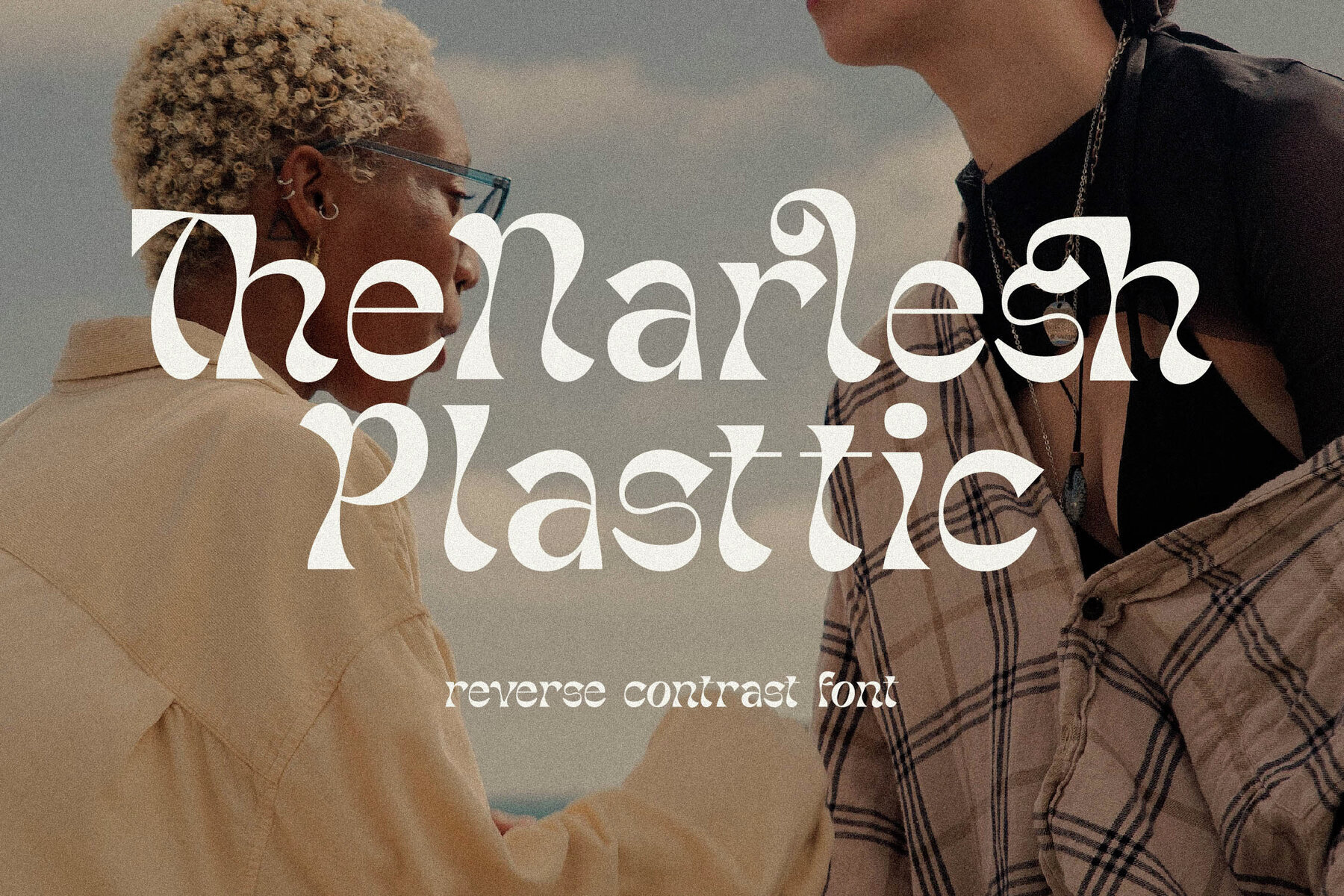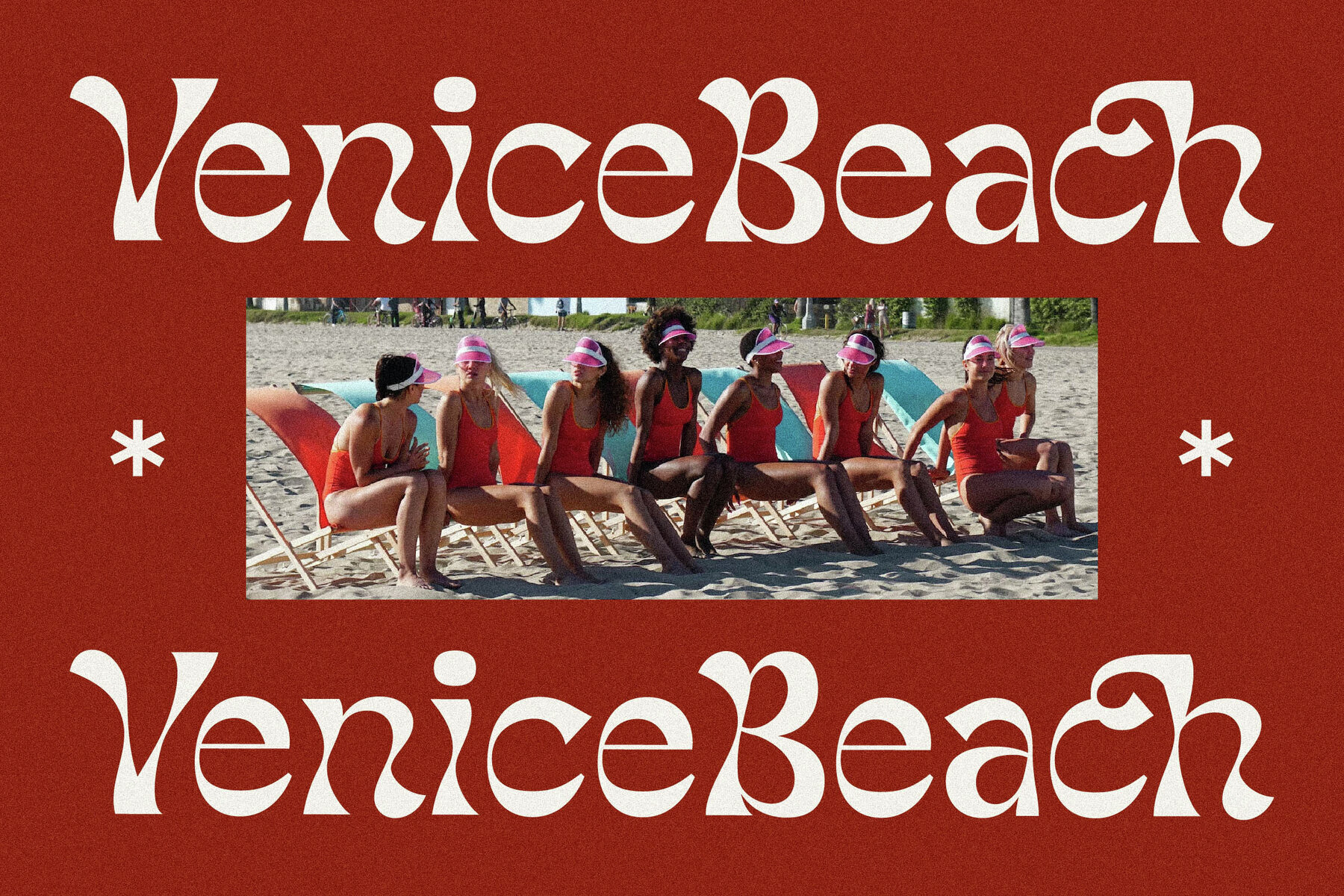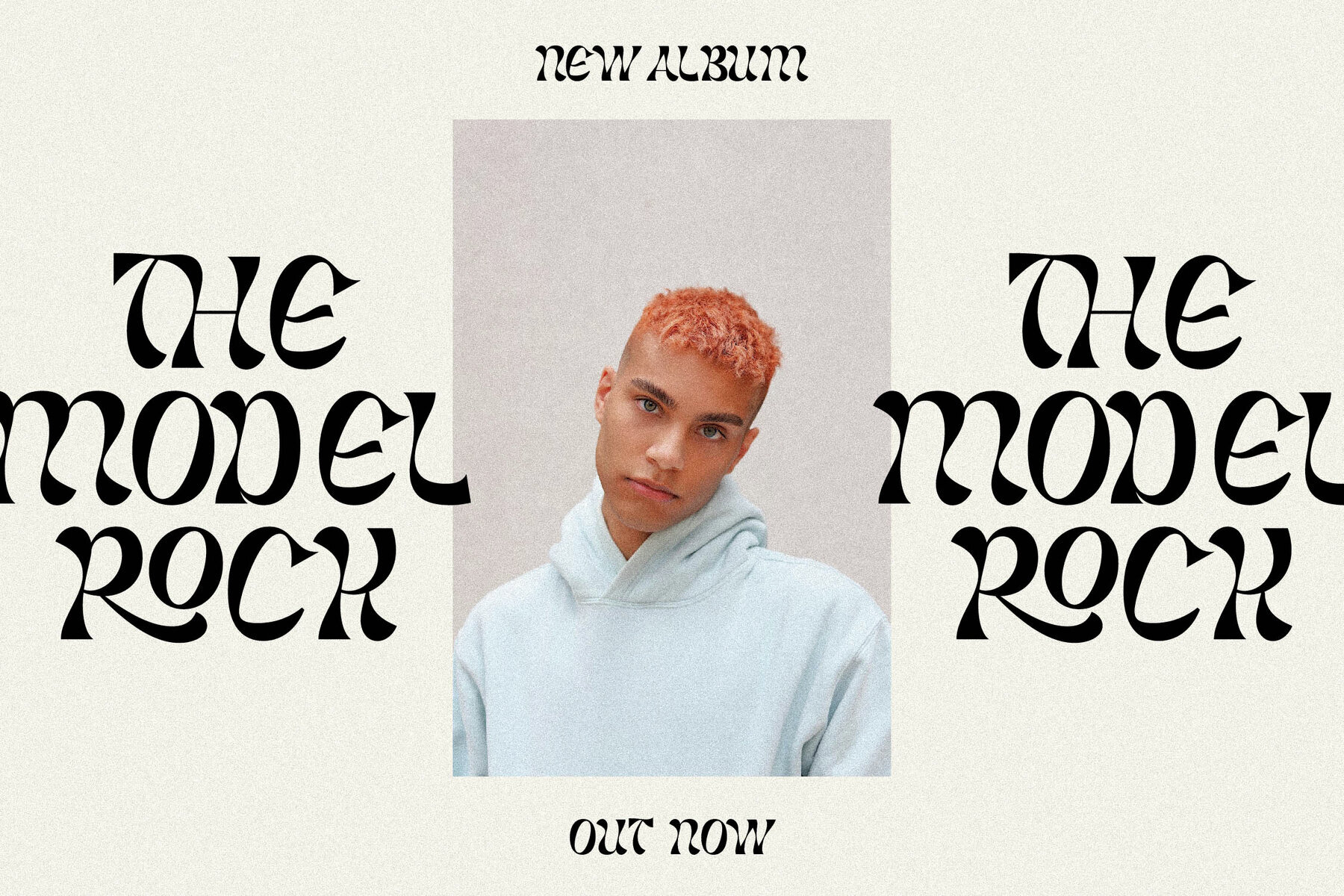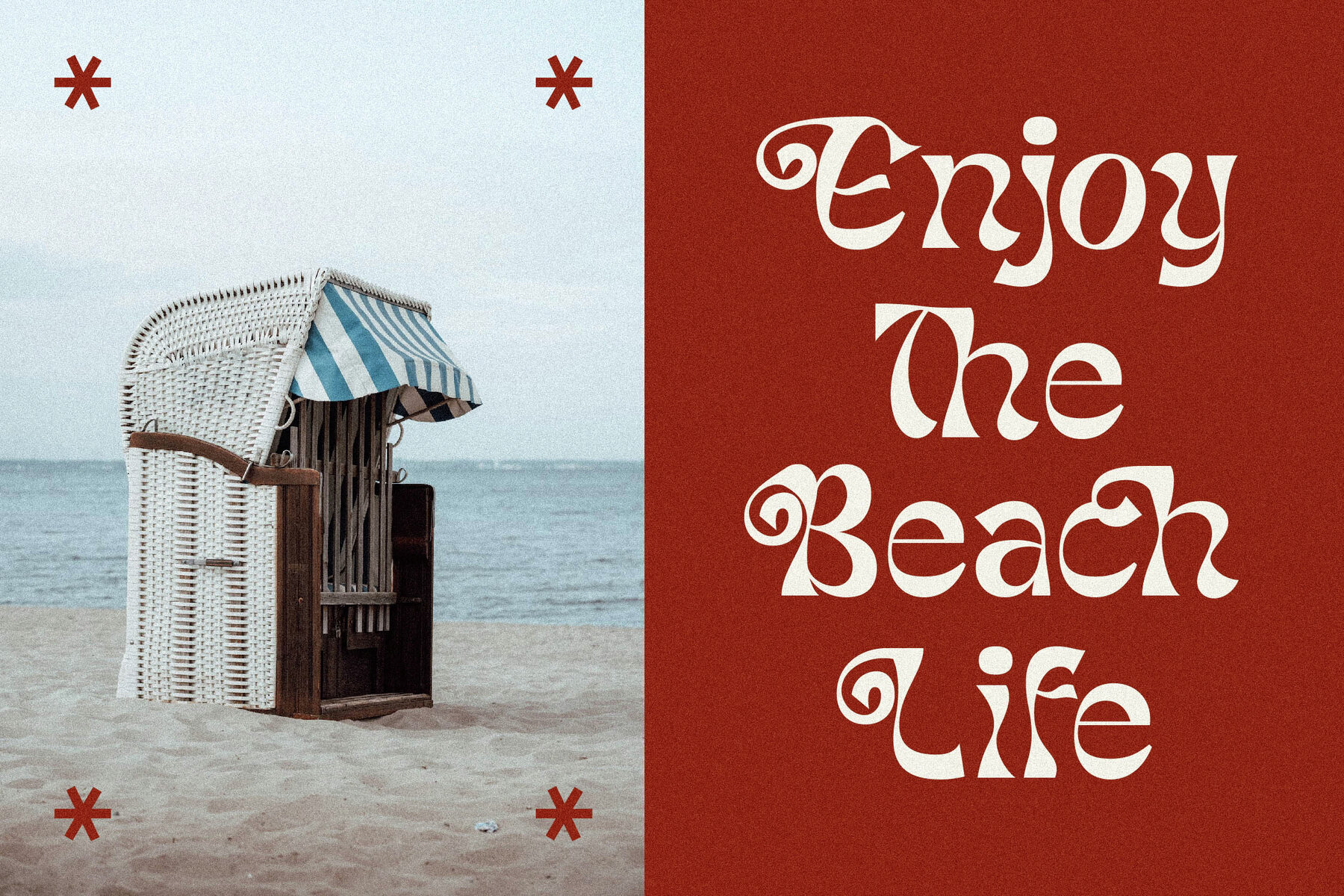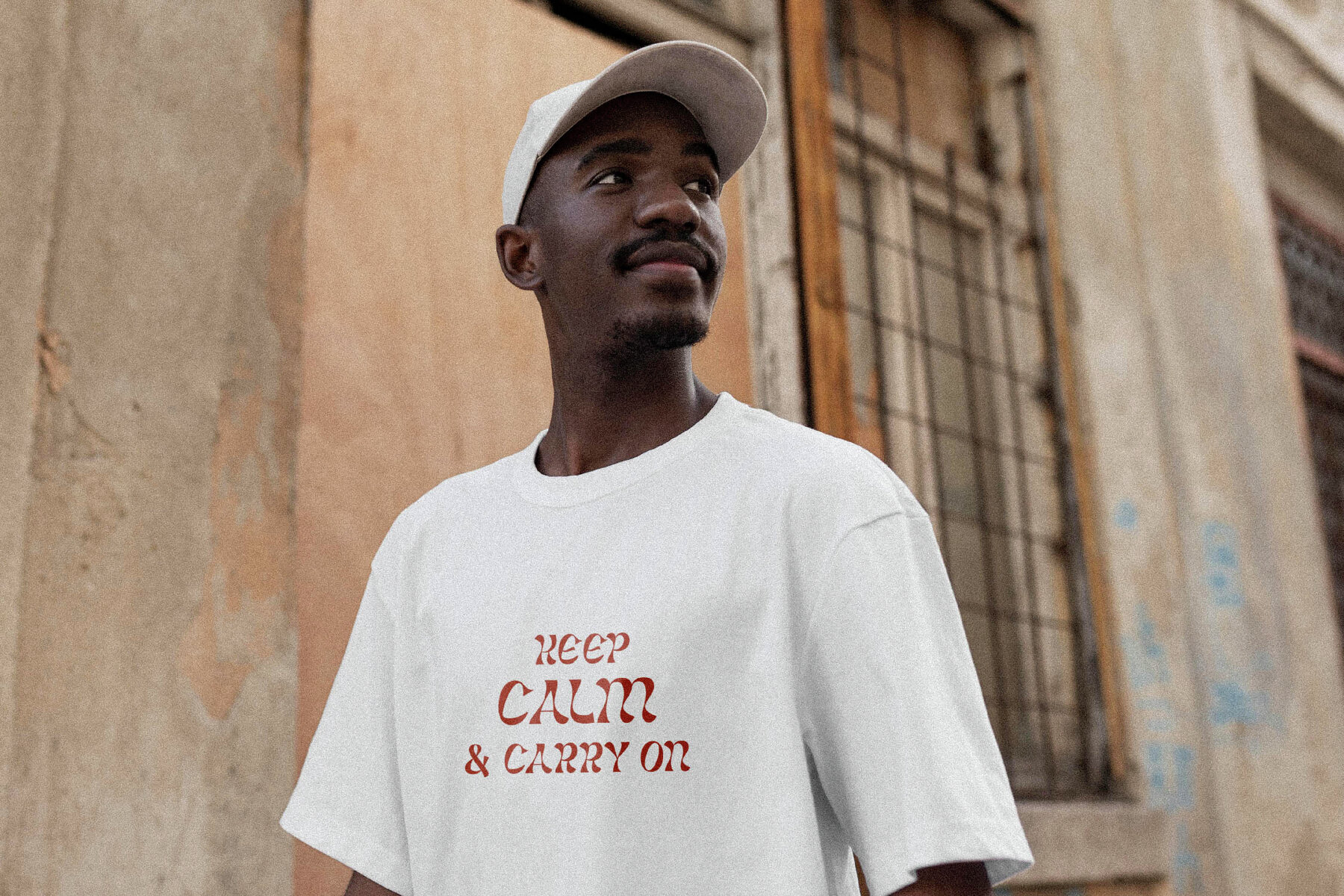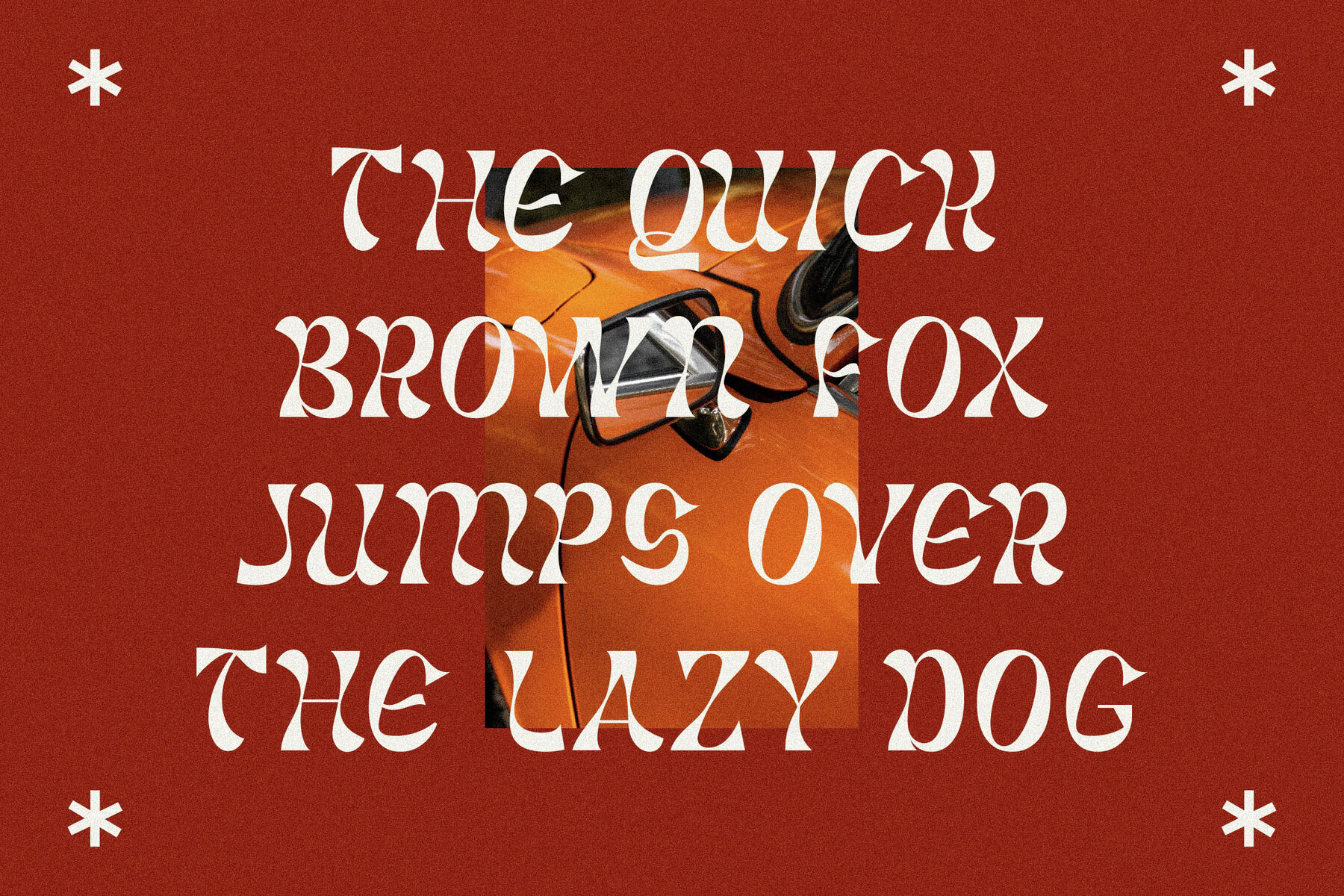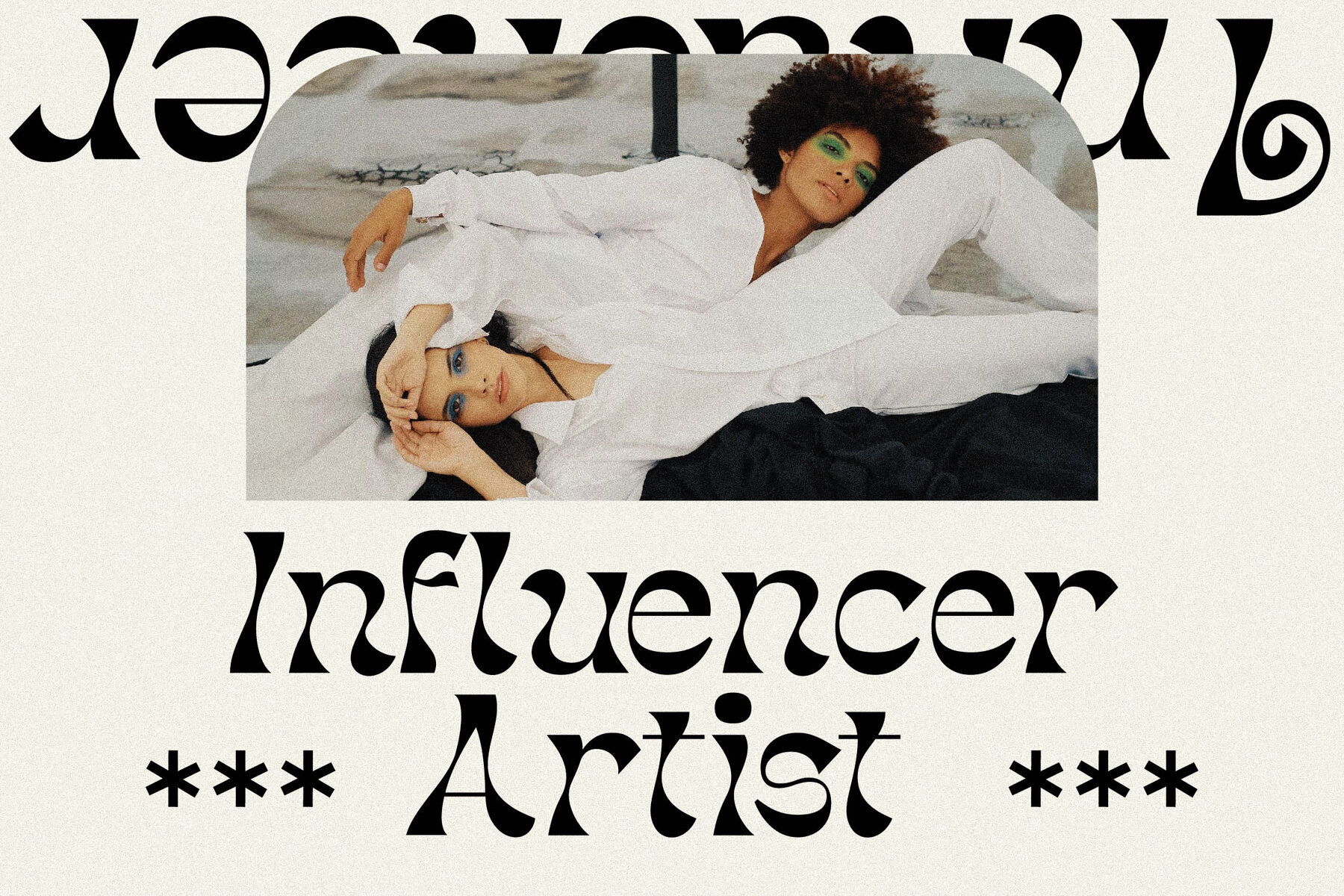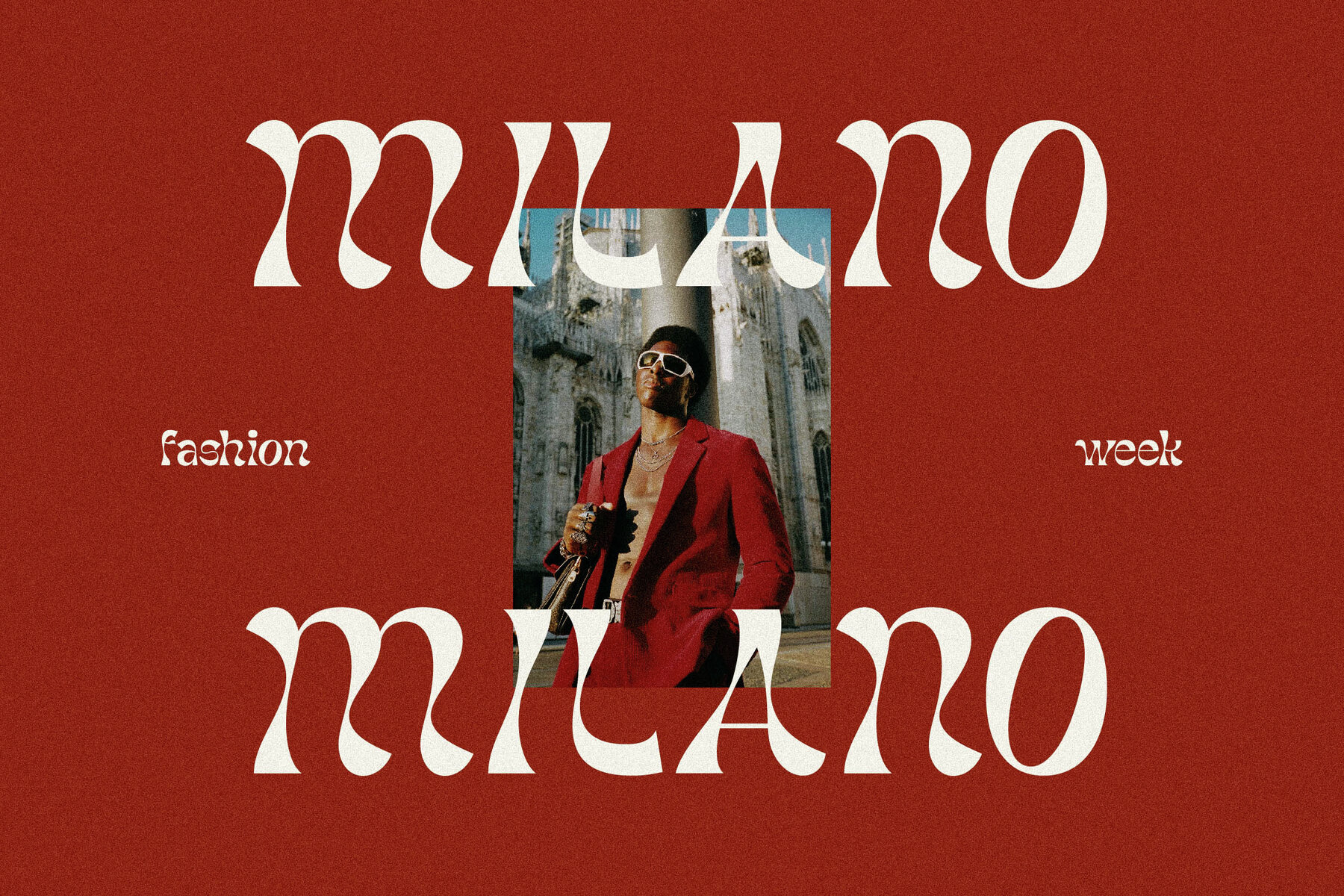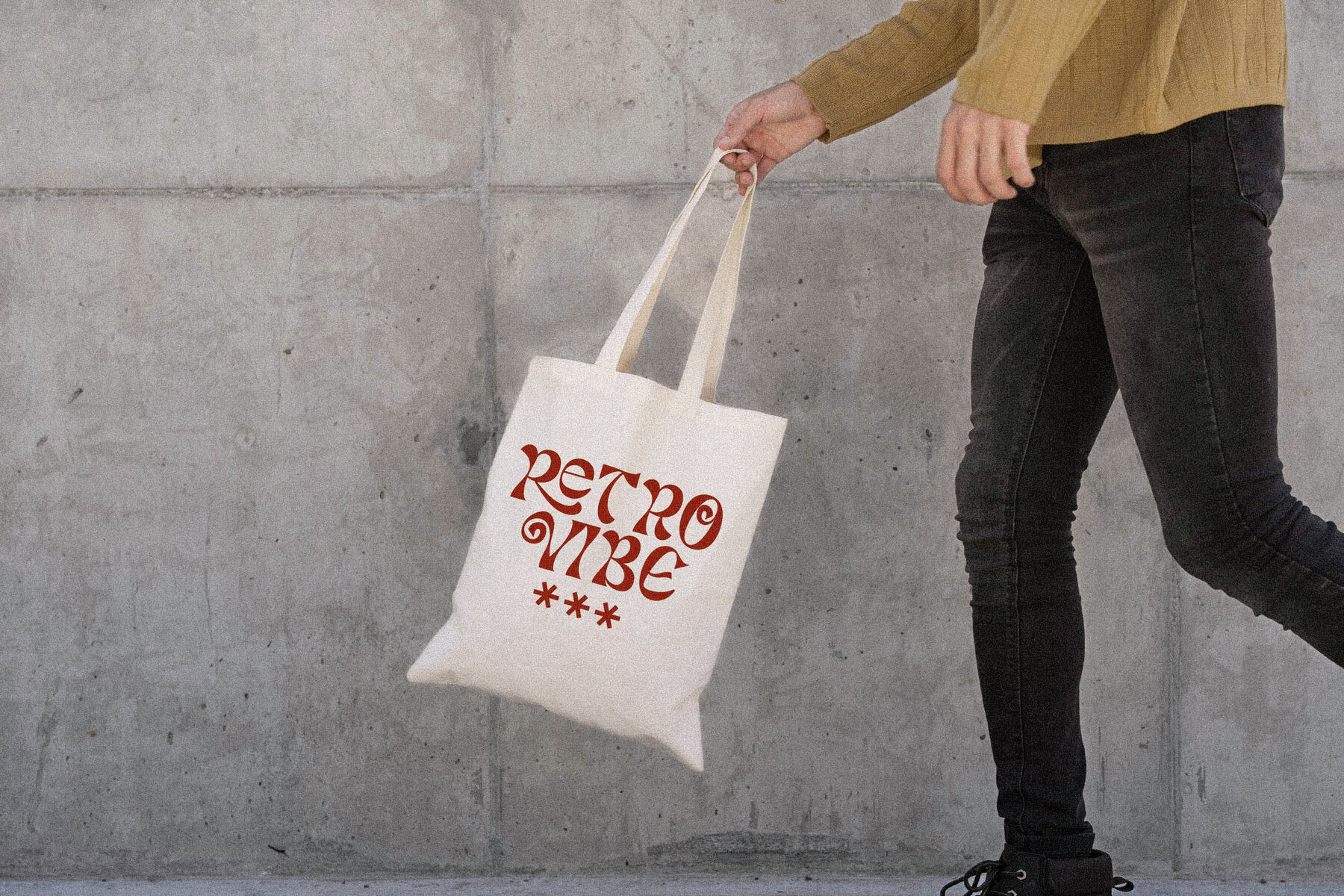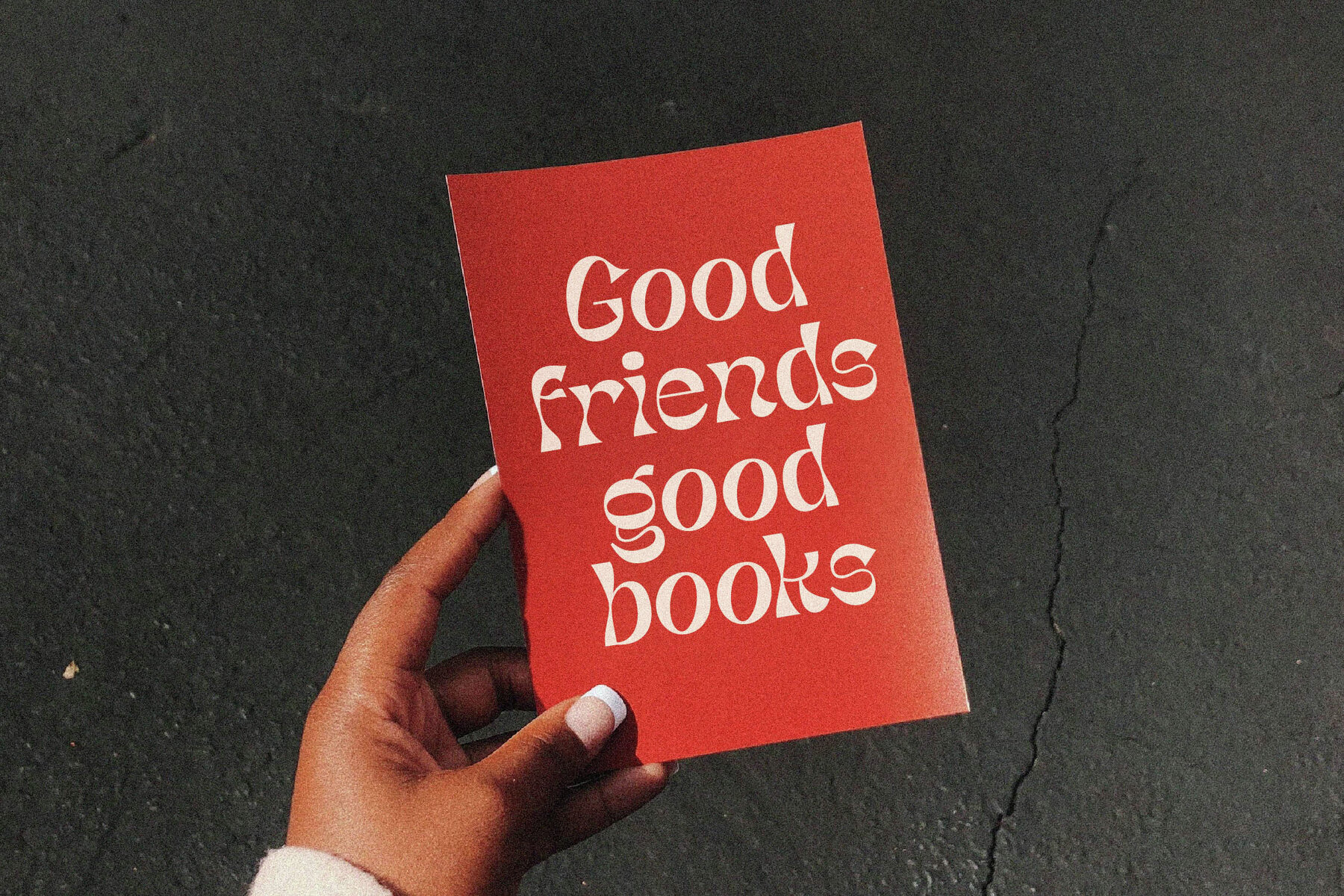
Narlesh Plasttic Font
The Narlesh Plasttic typeface seamlessly merges modern aesthetics with classic serif elegance. Ideal for creating an opulent and refined look, this font is suitable for luxury logos, book and movie titles, fashion brands, magazines, clothing, lettering, and quotations.Narlesh Plasttic: Unique Serif Typeface